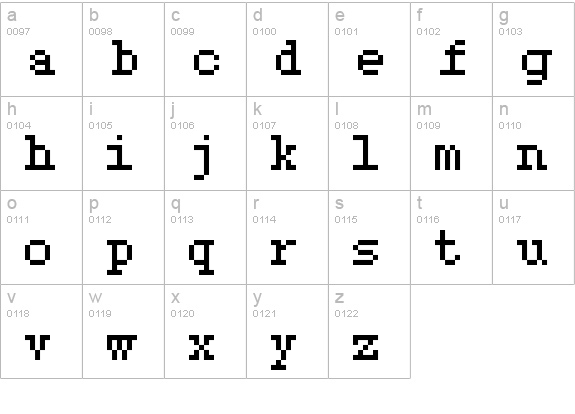
Type 07_55 font is a beautifully designed typeface that exudes elegance and sophistication. Its sleek and modern look makes it perfect for various design projects, from branding to editorial design and everything in between. This font features clean lines and perfectly balanced letterforms, making it easy to read and pleasant to the eye. Its versatility allows it to be used in a wide range of applications, making it a go-to choice for designers and creatives alike. One of the best things about Type 07_55 font is that it is freely available to download at FontsMarket.com. This means that you can start using this amazing font in your projects without any cost or restrictions. Whether you're a professional designer or a hobbyist, having access to high-quality fonts like Type 07_55 font can greatly enhance your design work. With Type 07_55 font, you can add a touch of sophistication and elegance to your projects. Whether you're creating a logo, a website, or a print design, this font will make your work stand out from the crowd. Its clean and modern look will give your designs a professional and polished finish. So why wait? Download Type 07_55 font for free at FontsMarket.com and start using this amazing font in your design projects today. Whether you're working on a personal project or a client's project, this font will surely elevate your designs to the next level. Don't miss out on the opportunity to use this fantastic font for free - it's a game-changer for any designer.